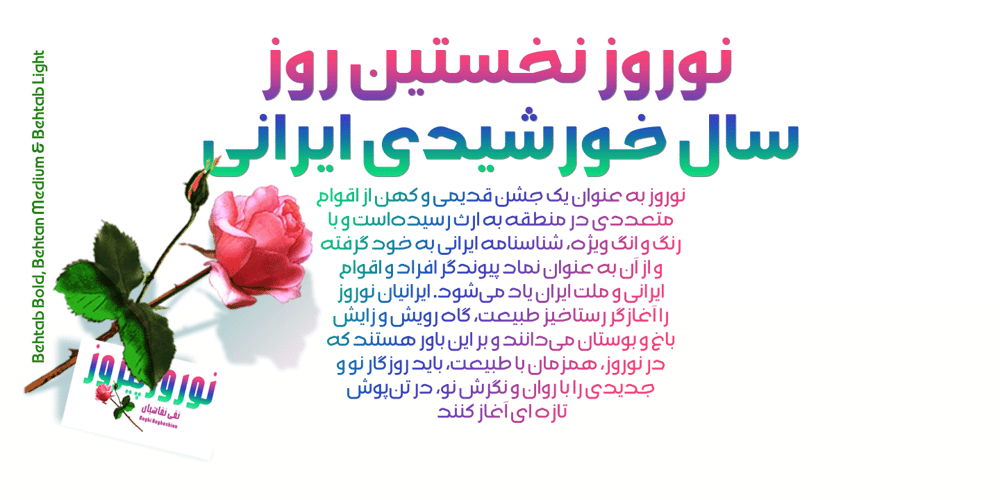
Behtab
Behtab font
Behtab Font Family was designed by Naghi Naghashian and published by Naghi Naghachian. Behtab contains 3 styles and family package options. Behtab is a sans-serif font family designed by Naghi Naghashian in tree weights. Behtab Light, Behtab Regular and Behtab Bold. It is extremely legible even in very small size.This font family is a contribution to modernisation the Arabic typography, gives the font design of Arabic letters real typographic arrangement und provides more typographic flexibility. Behtab supports Arabic, Persian ( Farsi ) and Urdu. It also includes proportional and tabular numerals for the supported languages.Behtab design fulfills the following needs:A Explicitly crafted for use in electronic media fulfills the demands of electronic communication. B Suitability for multiple applications. Gives the widest potential acceptability.C Extreme legibility not only in small sizes, but also when the type is filtered or skewed, e.g., in Photoshop or Illustrator. Bauhaus Arabic’s simplified forms may be artificial obliqued in InDesign or Illustrator, without any loss in quality for the effected text.D An attractive typographic image. Behtab was developed for multiple languages and writing conventions. Behtab Arabic supports Arabic, Persian and Urdu. It also includes proportional and tabular numerals for the supported languages.E The highest degree of calligraphic grace and the clarity of geometric typography.